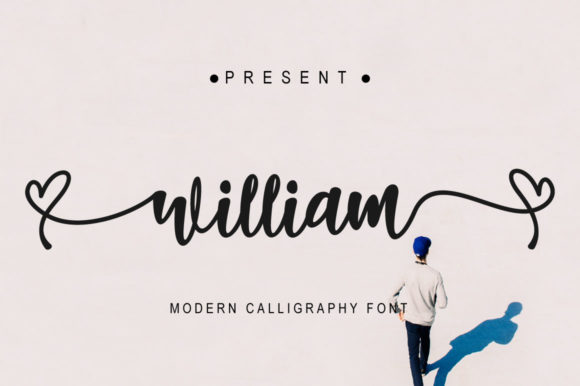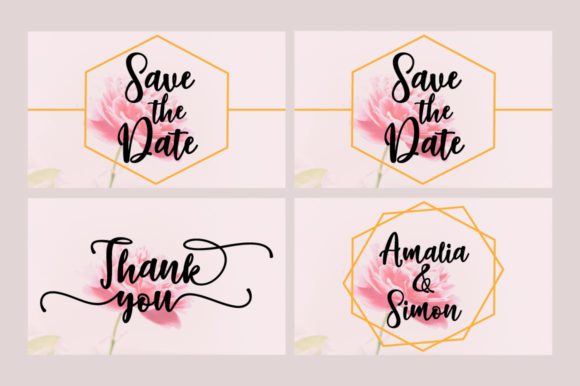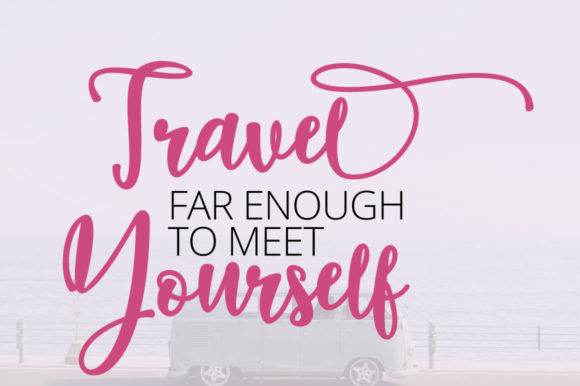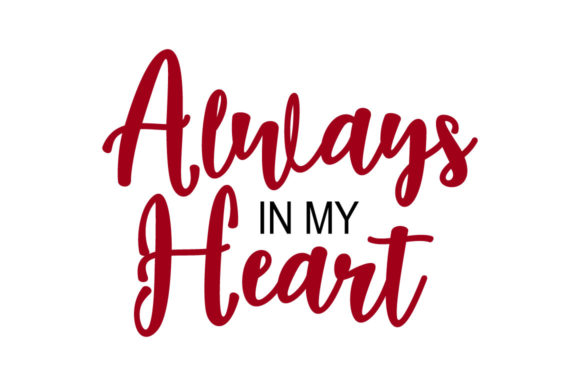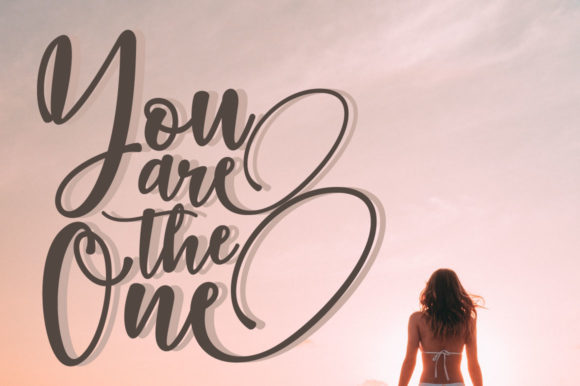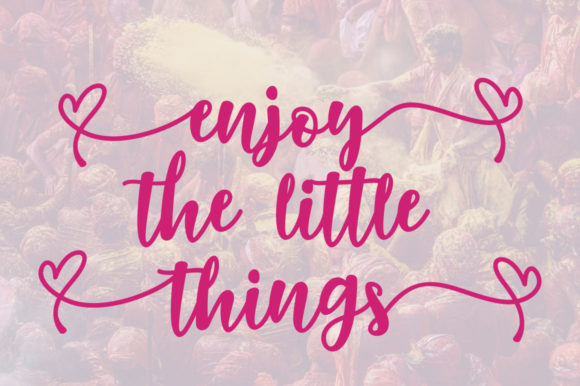
William Font
About William Font
William is a delicate and sweet handwritten font. This versatile script font has a wide spectrum of applications ranging from greeting cards to headlines and is guaranteed to add a romantic feel to your next project.